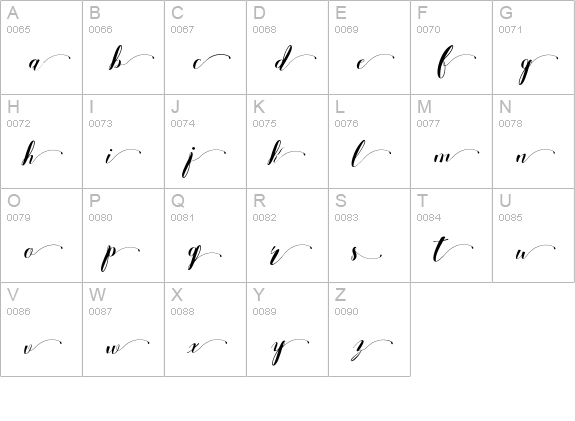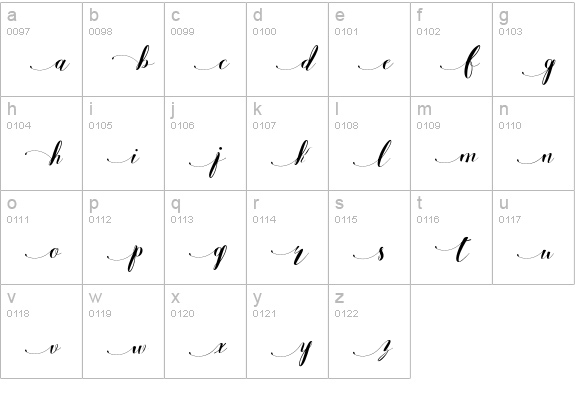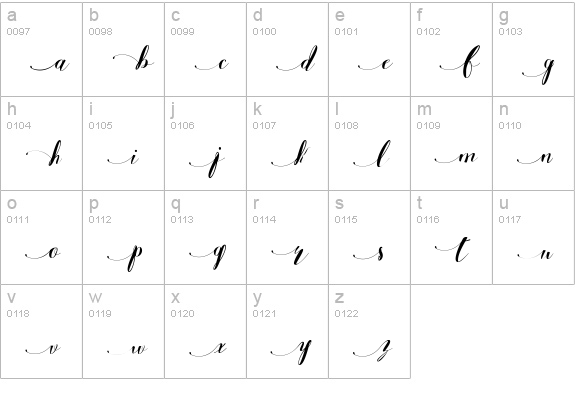
Zilvia extras glyph Medium is a balanced, medium-weight variant in the Zilvia typeface family \xE2\x80\x94 well suited to sub-headlines, navigation, and balanced editorial work.
Zilvia Extras Glyph Medium font is a versatile and stylish typeface that offers a plethora of design possibilities. With its unique glyphs and intricate details, this font is perfect for adding a touch of sophistication to your projects. The best part? It's completely free to download at FontsMarket.com! Don't miss out on this amazing opportunity to enhance your designs with Zilvia Extras Glyph Medium font.